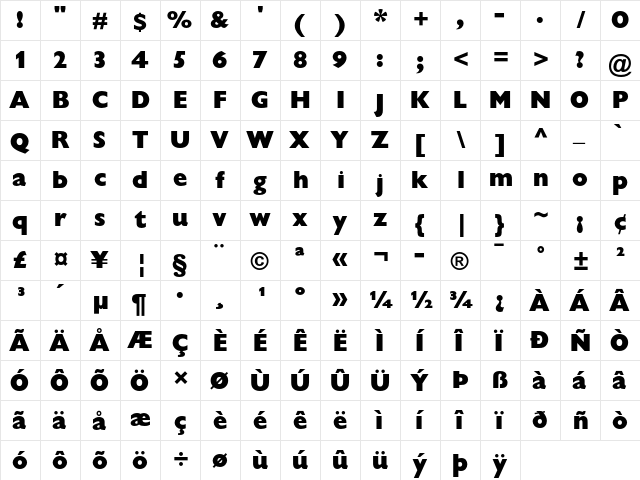
Gill Sans Display MT Pro Extra Bold
Design Context for Gill Sans Display MT Pro Typeface
Gill Sans Display MT Pro is built around its visual character rather than neutral utility — its distinctive forms are designed to make an impression at display sizes. The heavy weight commands attention and anchors typographic hierarchies.
Font Pairing: Pair with a clean neutral sans-serif for body copy to let Gill Sans Display MT Pro's character lead without overwhelming the composition.
Pro Tip: Use Gill Sans Display MT Pro exclusively at display sizes — it was designed to be seen, not read at length. Let a neutral companion handle body copy.